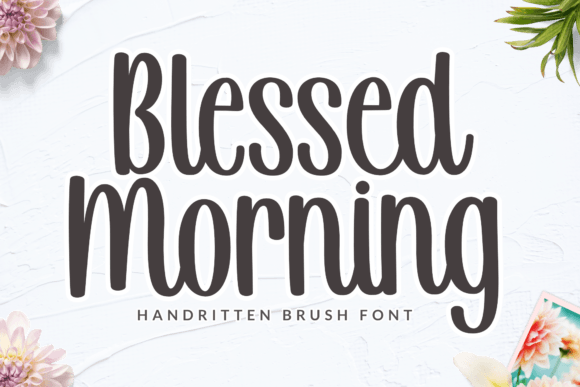
Presenting Blessed Morning Font - A Serene Script for All Your Creative Endeavors!
Step into a realm of serene elegance with Blessed Morning Font, a captivating script font meticulously crafted to bring a touch of tranquility to your digital creations. Inspired by the gentle whispers of the morning breeze, this font captures the essence of peace and harmony.
Unleash your creativity and let Blessed Morning Font accompany you in expressing your heartfelt messages. Its graceful curves and playful strokes will seamlessly blend with your designs, evoking a sense of calm and serenity. Whether you're crafting heartwarming invitations, designing enchanting logos, or composing heartfelt social media posts, Blessed Morning Font will effortlessly elevate your words and leave a lasting impression.
Dive into a world of endless possibilities with Blessed Morning Font. Its versatility knows no bounds, making it the perfect companion for a symphony of creative projects. Adorn your t-shirts and tote bags with unique and eye-catching designs, let your digital art bloom with a touch of sophistication, or add an extra layer of charm to your presentations. Let Blessed Morning Font be your muse and watch as your creations come to life with a newfound allure.
As a handwritten font, Blessed Morning Font exudes an inimitable charm that breathes life into your digital creations. Its organic and spontaneous nature adds a touch of authenticity and warmth, making your designs resonate with a genuine and heartfelt appeal. Embrace the beauty of imperfections and let Blessed Morning Font bring a touch of human connection to your work.
Join the growing community of creatives who have discovered the magic of Blessed Morning Font. With its user-friendly nature and compatibility with a wide range of software, this font is accessible to designers of all levels. Dive into the depths of your creativity and let Blessed Morning Font guide you towards designing masterpieces that capture the essence of serenity and charm.
Blessed Morning Font awaits your creative touch. Embrace its calming energy and embark on a journey of artistic exploration. Let your imagination soar and witness the transformative power of this exquisite font. The possibilities are endless, and the beauty you create is boundless.